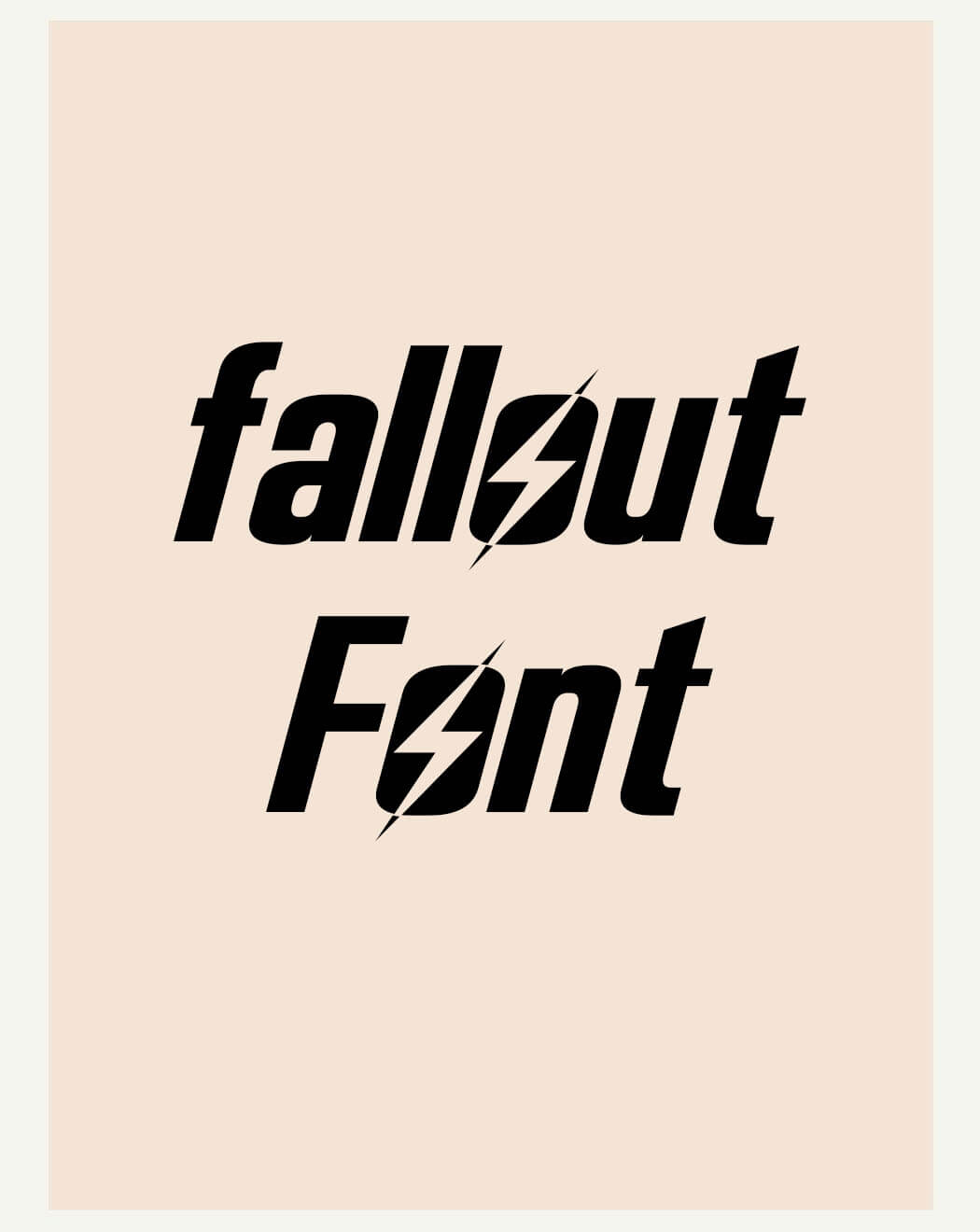
The font is available in uppercase letters, lowercase letters, most punctuation marks and diacritical. Fallout font made by balpirick download free for personal use add to favorites donate share light handdrawn modern calligraphy swash swash caps permalink fallout regular otf. It came on the surface after the font applied on the fallout gaming video became highlighted.
The Names Of Creatures/Characters In Vats.
The fonts in the fallout series are used both in and out of the game for tone consistency, visual branding, and promotional imagery. It has otf features and the designer of. Fallout font is a stylish gaming typeface that was owned by pixel sagas many years ago.
What Are The Fonts Used In Fallout.
Fallout is a modern calligraphy font. I think one of the fonts was also used in fallout 3 and fallout new. Fallout font made by balpirick download free for personal use add to favorites donate share light handdrawn modern calligraphy swash swash caps permalink fallout regular otf.
Fallout Is A Flowing Handwritten Font, Described By An Elegant Touch, Perfect For Your Favorite Projects.